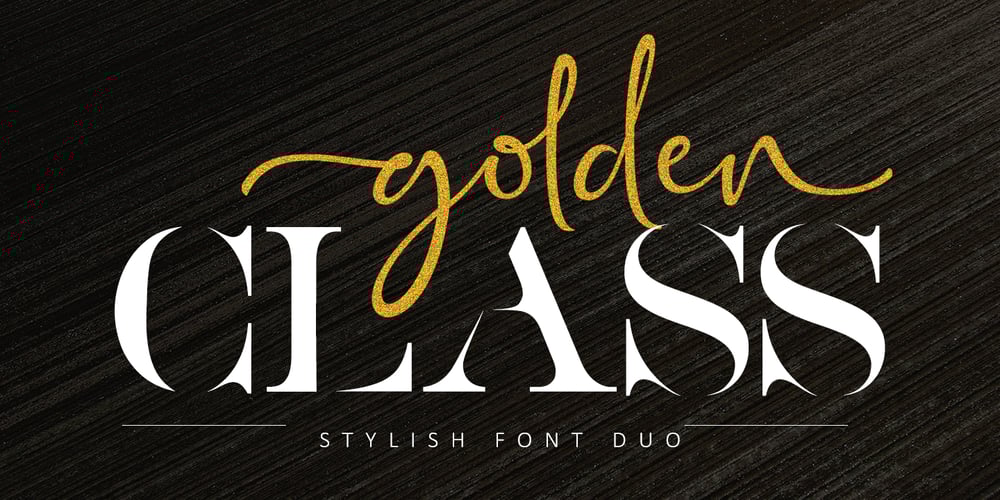
Golden Class Font Duo
Golden Class Font Duo font
Golden Class Font Duo Font Family was designed by Rangga Subekti and published by Subectype. Golden Class Font Duo contains 3 styles and family package options. The Golden Class is a font duo between a serif and two modern script fonts. Golden Class is good for logo branding, wedding invitation, typography wedding, quotes text, magazine, or anything you want to do. Golden Class Serif includes numbers punctuation, alternates, and it also supports other languages. Golden Class script was built with OpenType features and includes ligatures, beginning and ending swashes (lowercase alternate), numbers, punctuation, alternates, and it also supports other languages. Thank you!